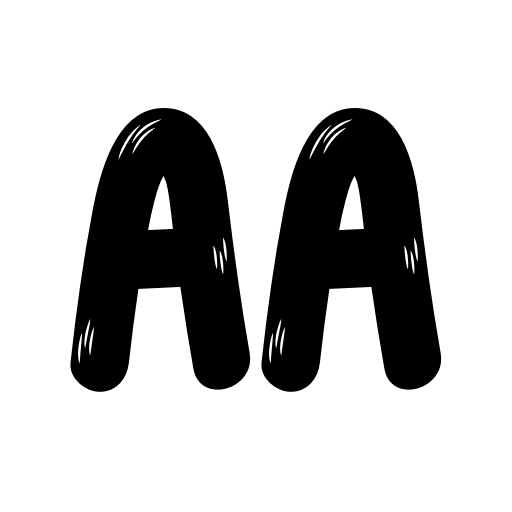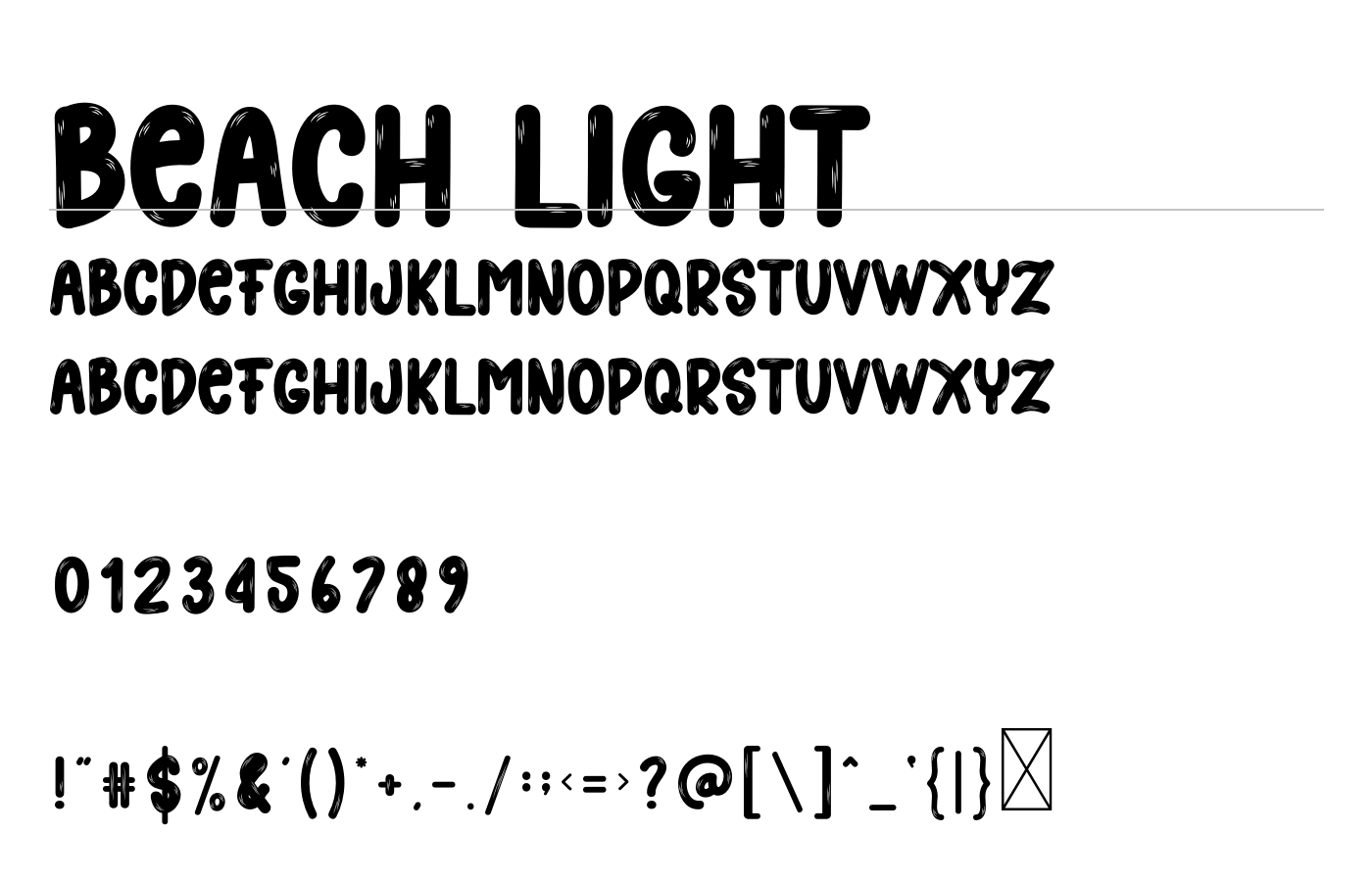
Beach Light is a playful, casual sans serif font with a hand-drawn, brush-style texture that adds a lively, informal feel. Its rounded, slightly irregular letterforms and medium weight make it ideal for fun, friendly designs, perfect for beach-themed branding, posters, or social media headlines where a relaxed and approachable vibe is desired.
Beach Light Font